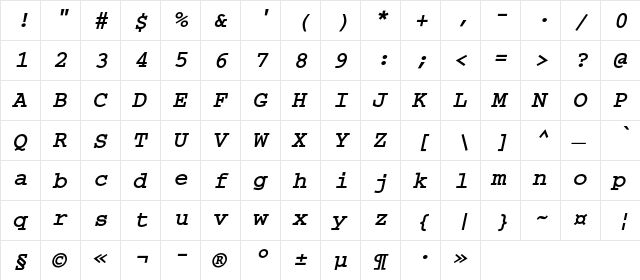
CourierC Bold Italic
Design Context for CourierC Typeface
CourierC brings the precise, column-aligned rhythm of monospaced typography to designs that value technical clarity and systematic order. Its italic angle brings a sense of urgency and motion to the letterforms. Its bold stroke weight gives it real presence on the page.
Pro Tip: Pair CourierC with a proportional sans for UI contexts where code-style labels and regular body copy need to coexist.